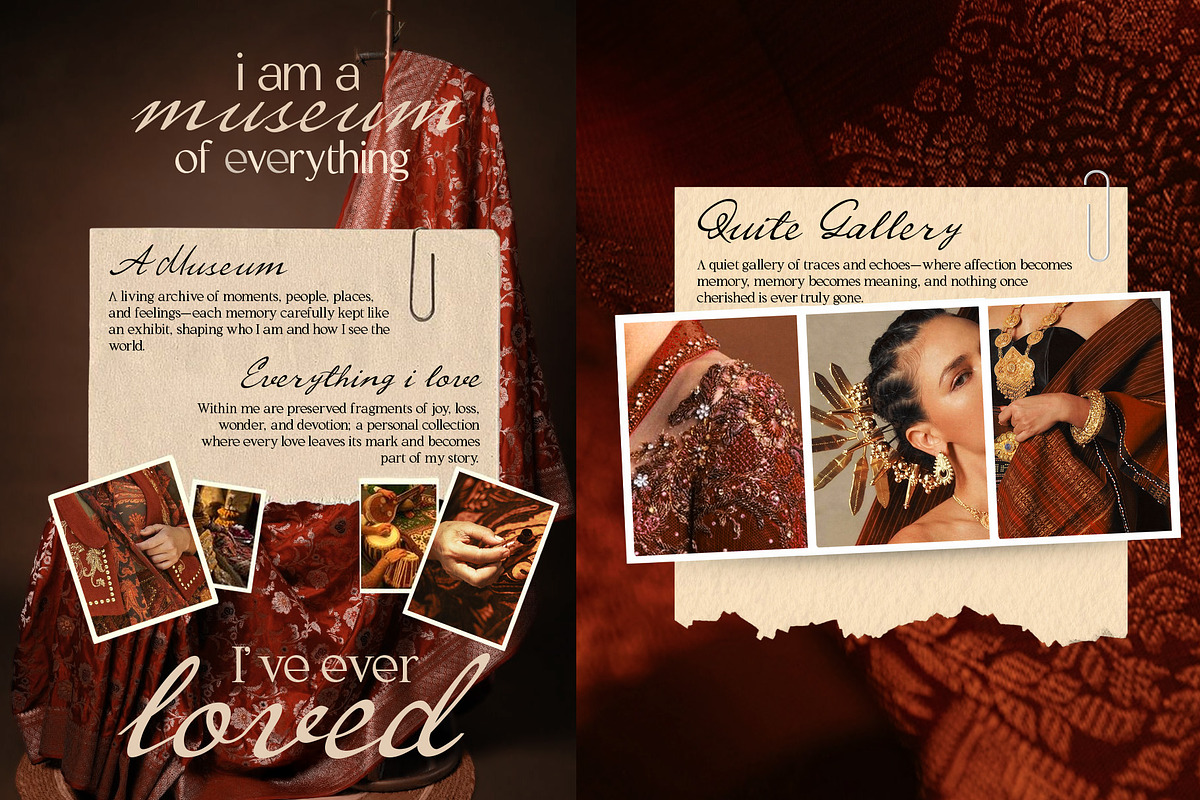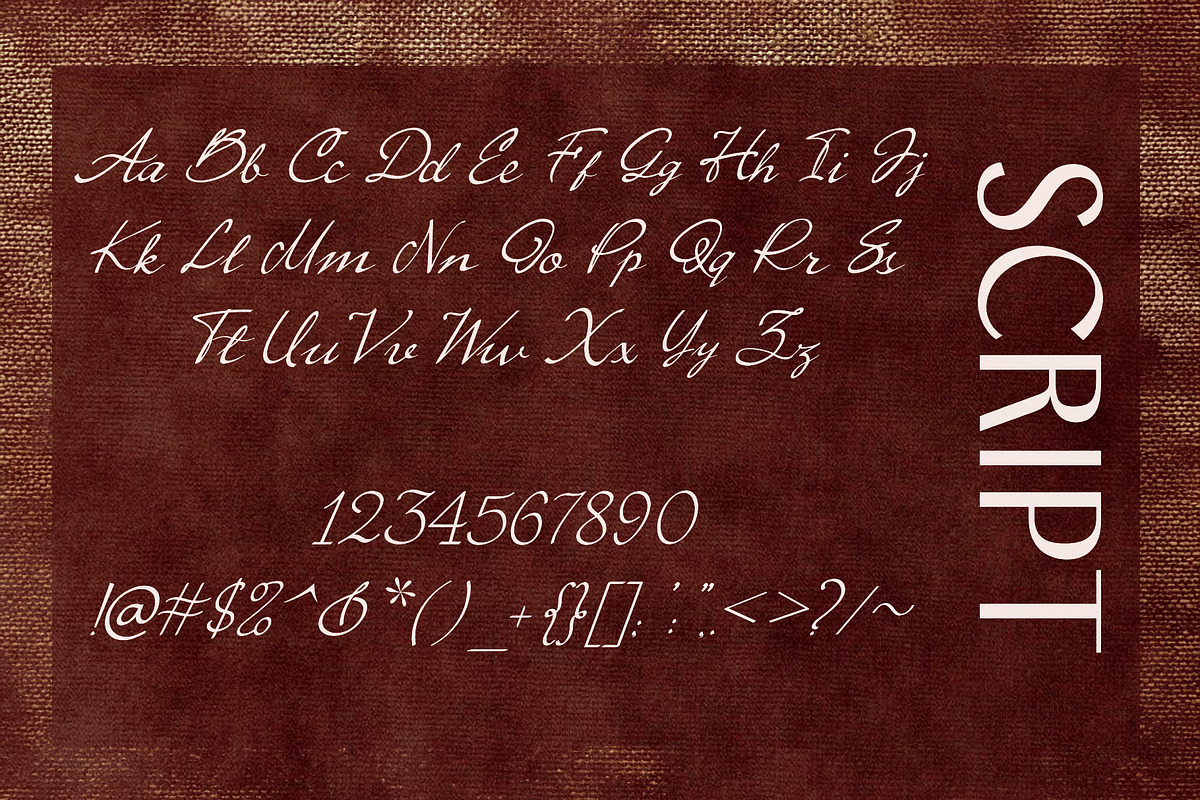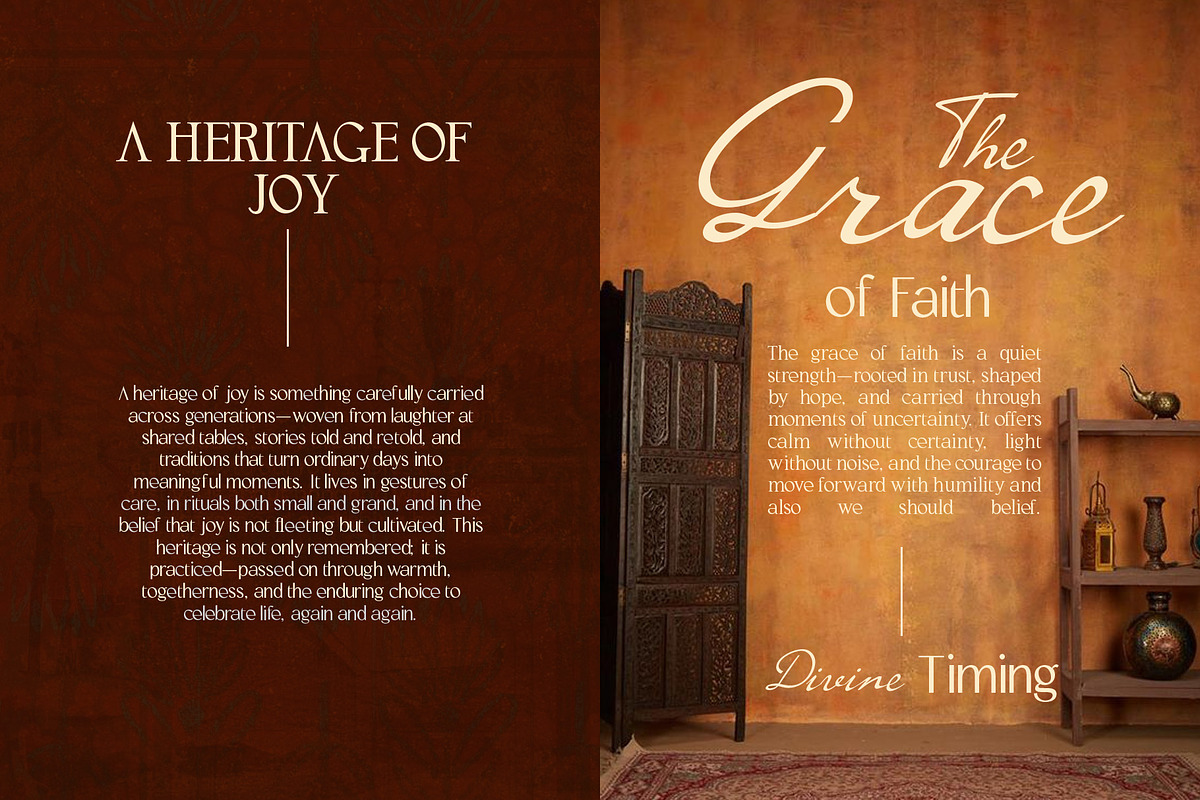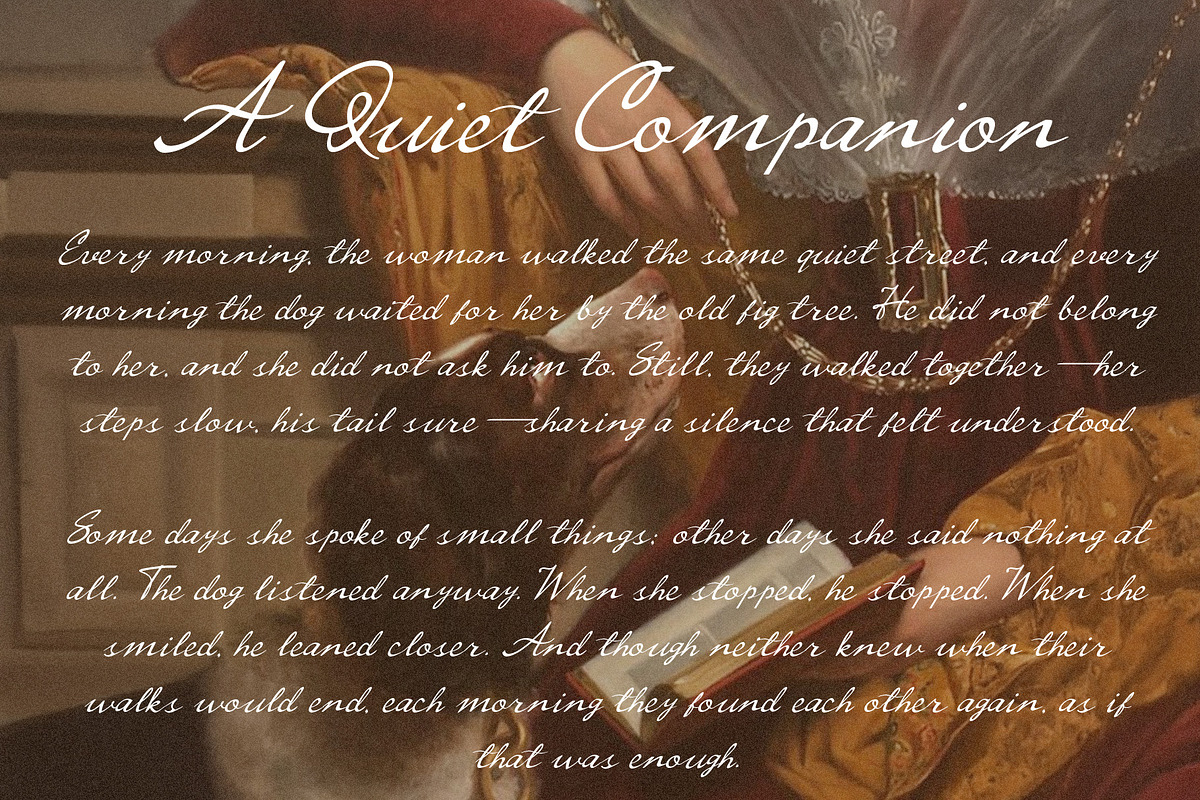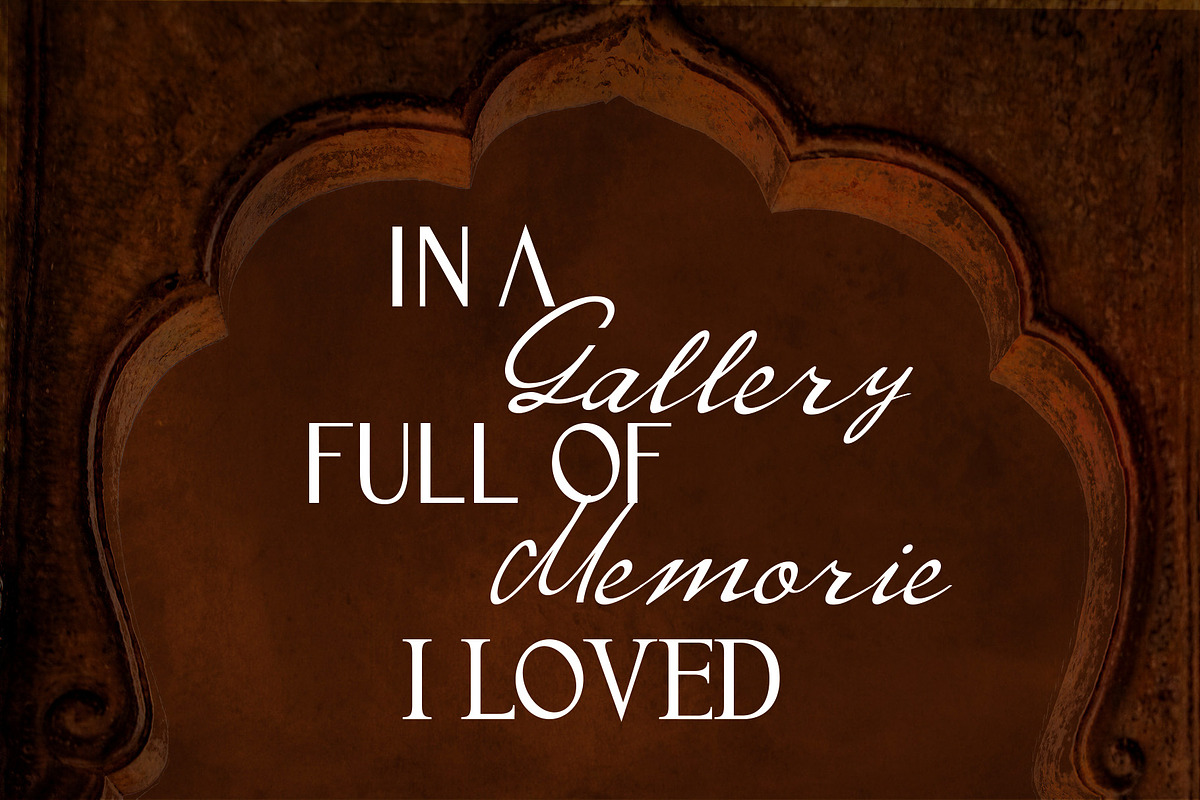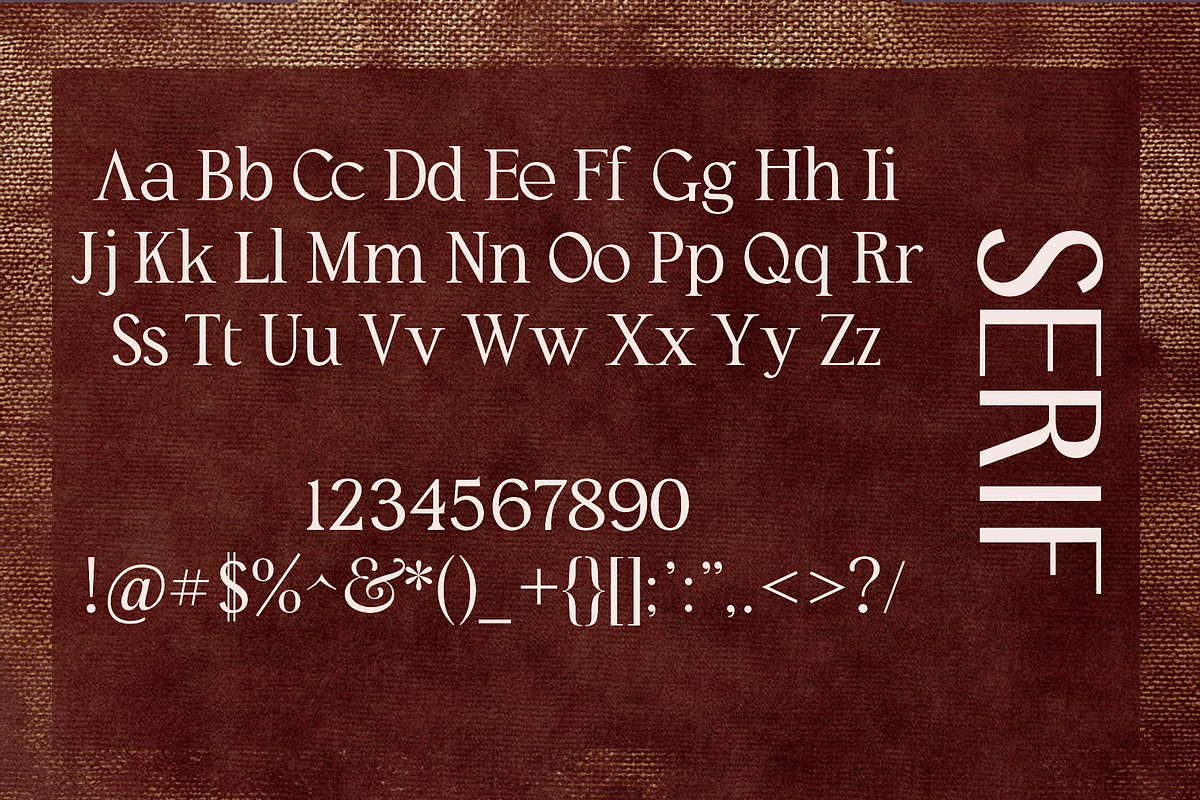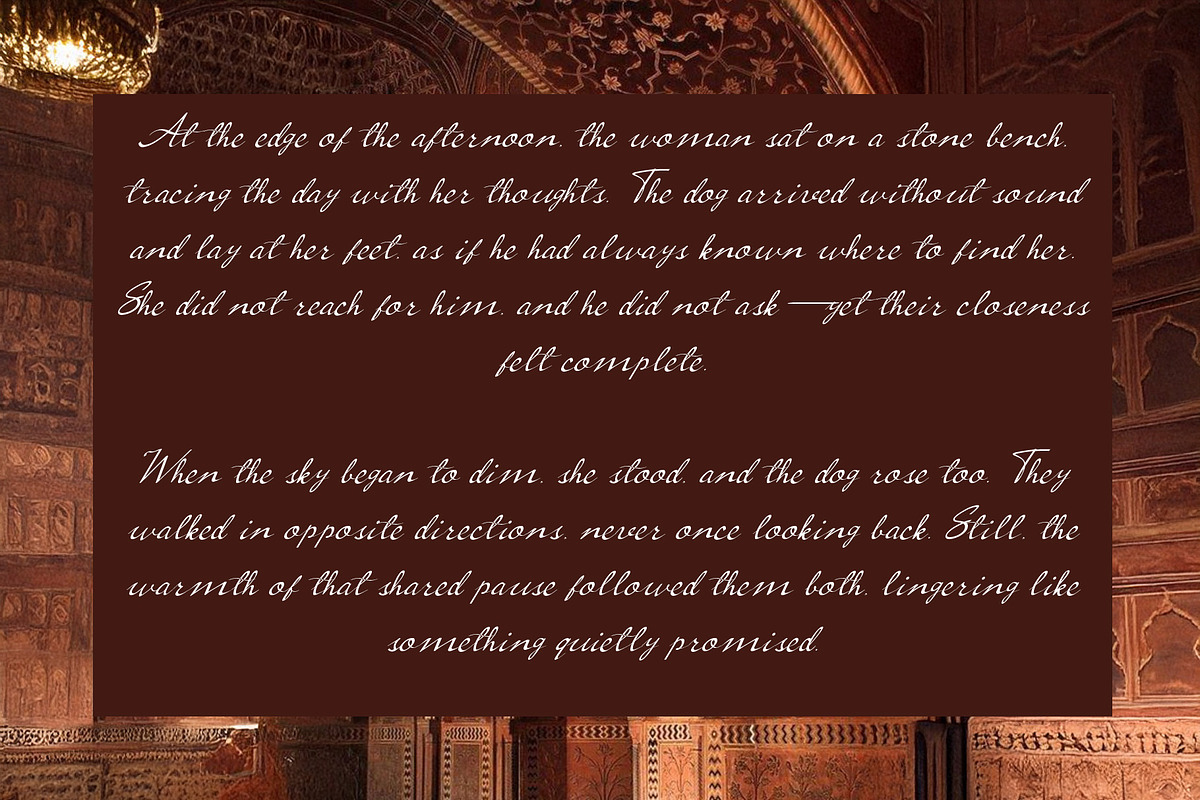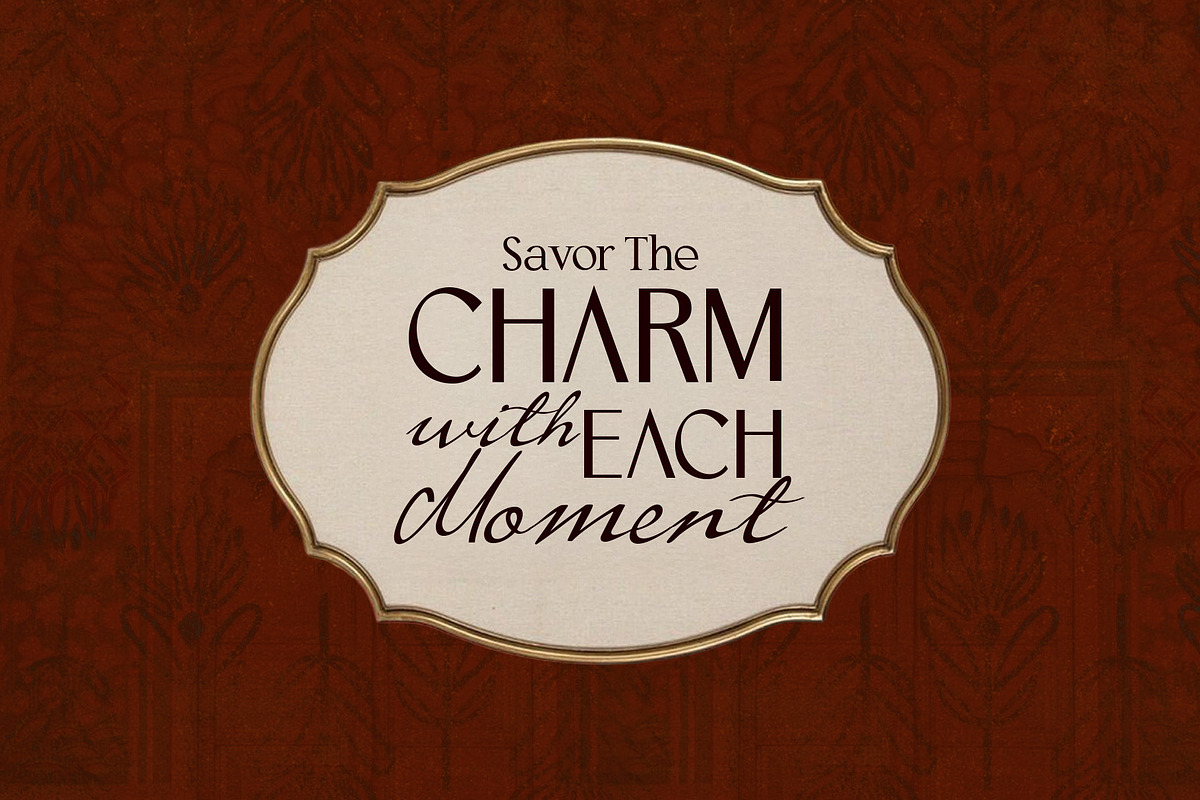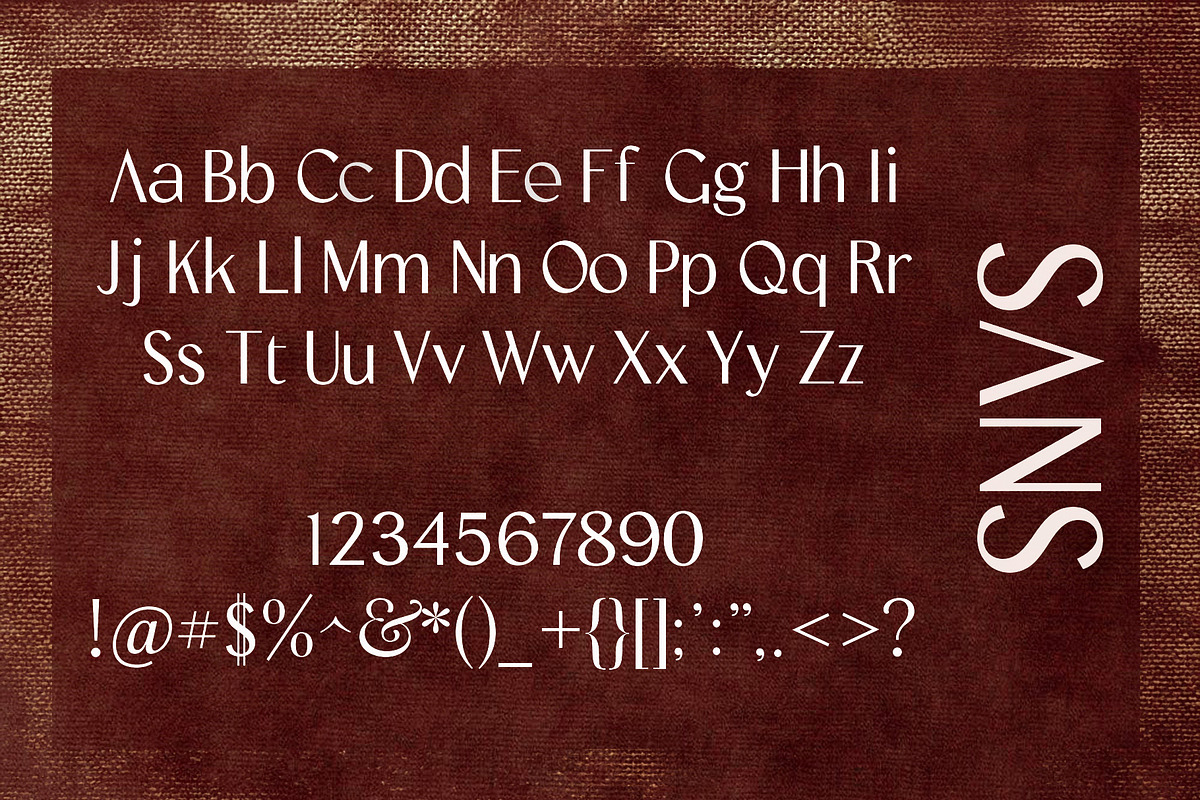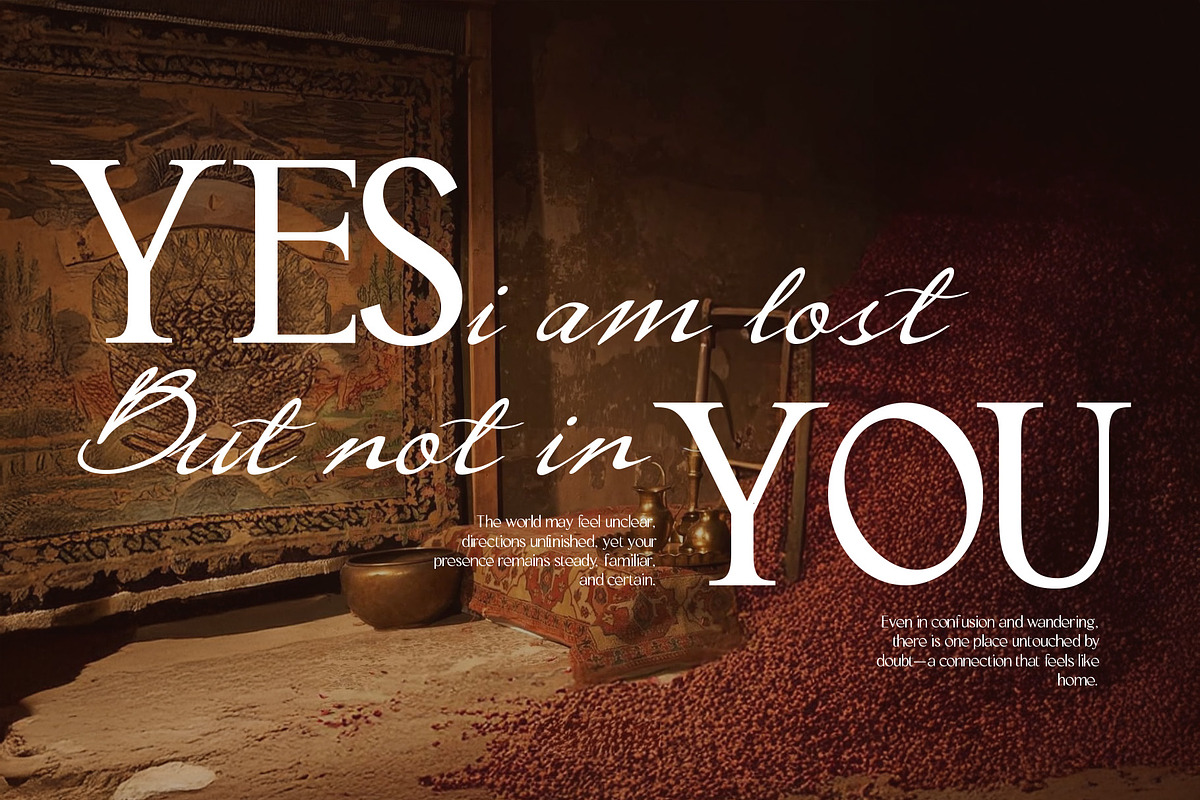
Meadow Reverie - Trio Vintage
Meadow Reverie – Trio Vintage Font Bundle
Meadow Reverie is a handcrafted trio font bundle inspired by vintage romance, artisan lettering, and timeless editorial design. Carefully designed to work beautifully together, this font family blends expressive script, elegant serif, and quiet supporting type—giving you everything you need to create rich, layered typography with ease.
Whether you’re designing branding, packaging, posters, or social media visuals, Meadow Reverie helps you tell a story that feels warm, nostalgic, and refined.
What’s Inside the Bundle
Meadow Reverie includes 3 perfectly balanced font styles:
Meadow Reverie Script A flowing, expressive handwritten script with graceful curves and organic movement. Perfect for romantic headlines, logos, quotes, and accent text.
Meadow Reverie Serif A classic vintage serif with elegant proportions and strong character. Ideal for titles, brand names, packaging, and editorial layouts.
Meadow Reverie Sans / Companion Font A clean, quiet typeface designed to support the script and serif beautifully—perfect for body text, captions, and small details.
Each font is crafted to complement one another, so you can mix and match effortlessly without worrying about typography harmony.
Best Used For
Meadow Reverie is perfect for:
- Logo & brand identity design
- Vintage & retro branding
- Packaging design (coffee, chocolate, candles, skincare, handmade products)
- Wedding invitations & stationery
- Posters, album covers & editorial layouts
- Social media graphics & marketing visuals
- Quotes, signage, labels & badges
If you’re looking for a font bundle that feels handmade, nostalgic, and timeless, Meadow Reverie is designed for you.
Why You’ll Love It
Designed as a true trio, not random fonts
Saves time—no need to search for matching typefaces
Vintage aesthetic with modern usability
Perfect balance between expressive and readable
Bring a sense of calm beauty and storytelling to your designs with Meadow Reverie.